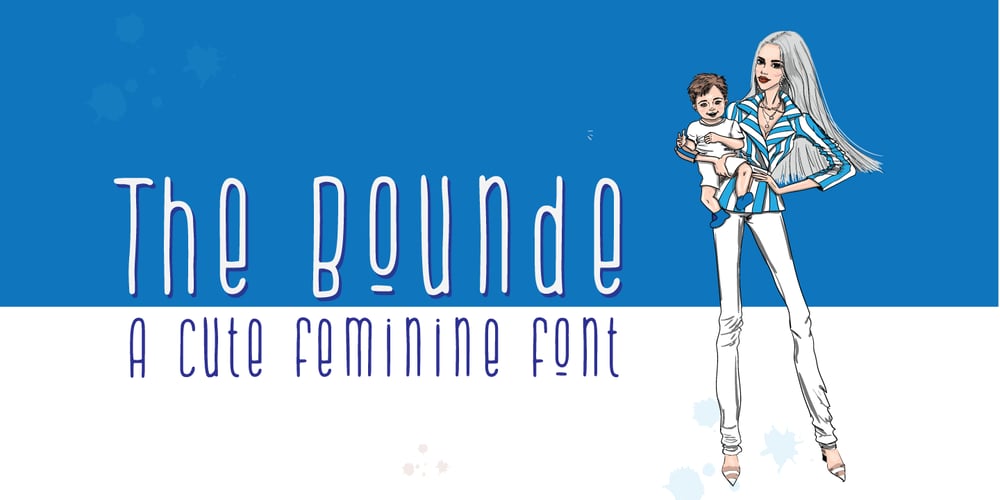
The Bounde
The Bounde font
The Bounde Font Family was designed by Siti Saribanon Nurjannah and published by Cititype. The Bounde contains 1 styles and family package options. The Bounde is a bold script, carefully handcrafted to become a true favorite. Its casual charm makes it appear wonderfully down-to-earth, readable and, ultimately, incredibly versatile. The Bounde will look outstanding in any context, whether it’s being used on busy backgrounds or as a standalone headline!